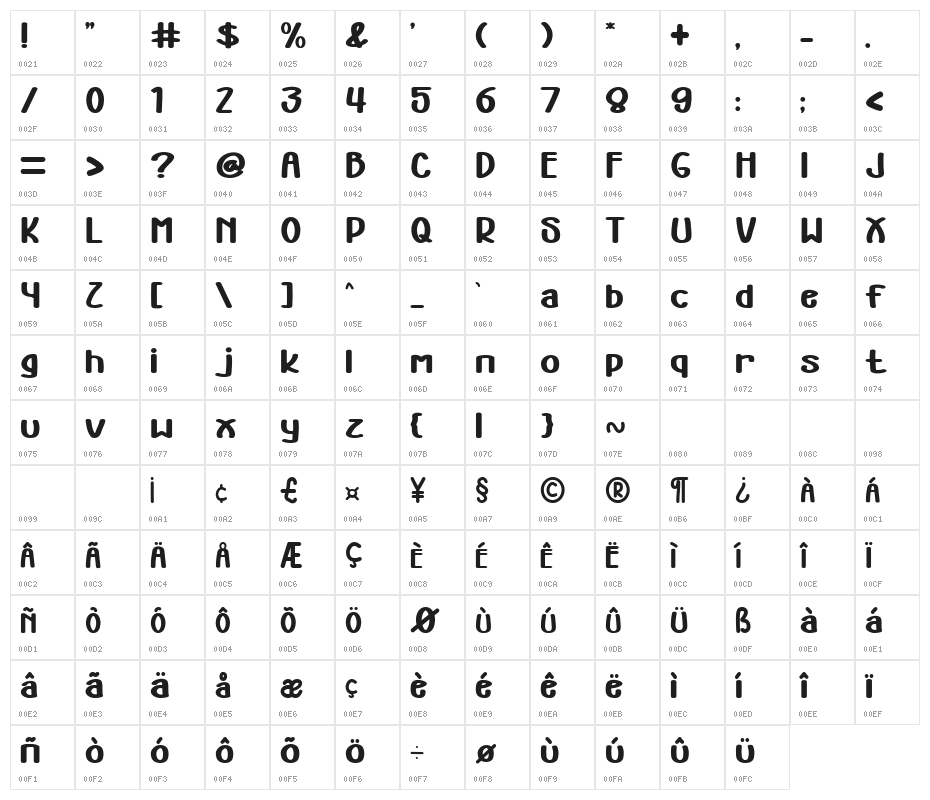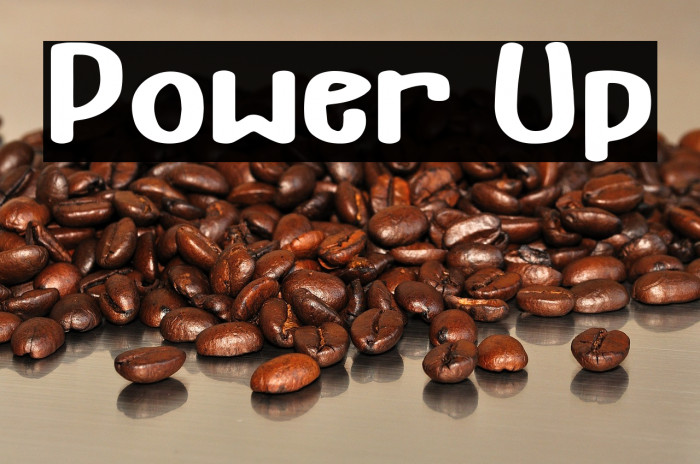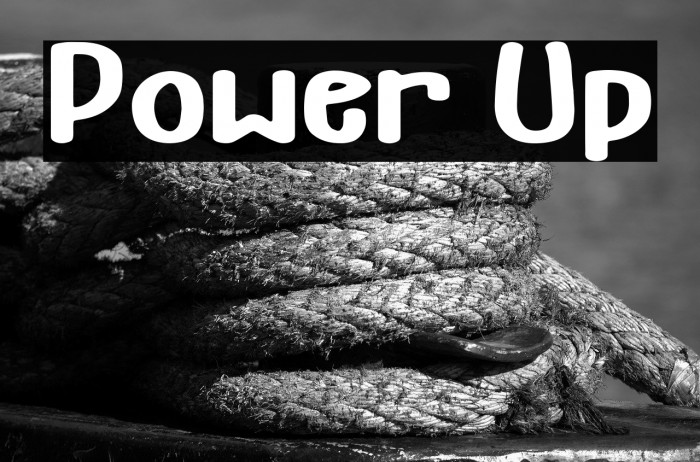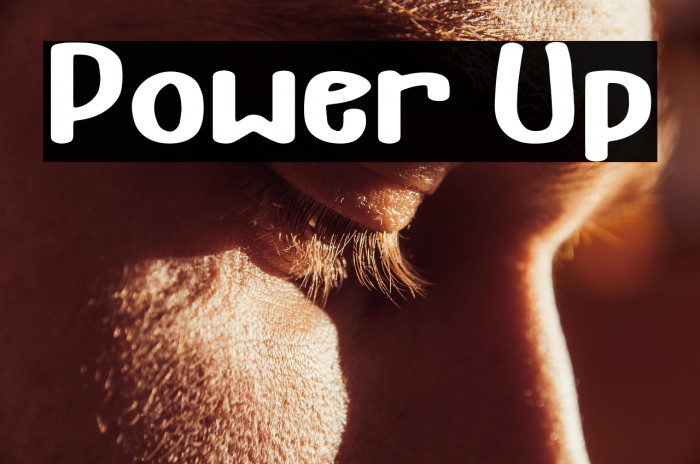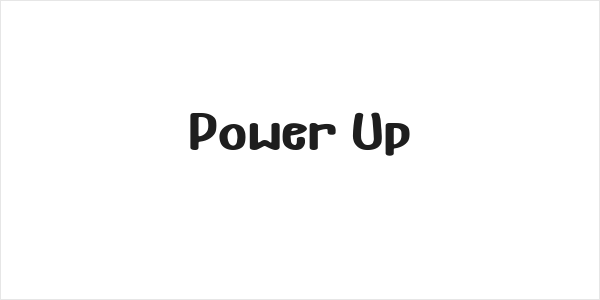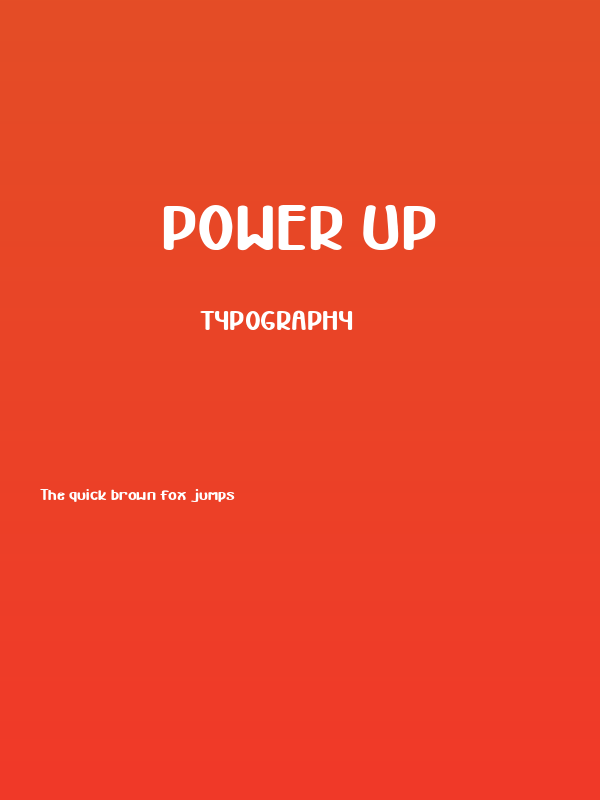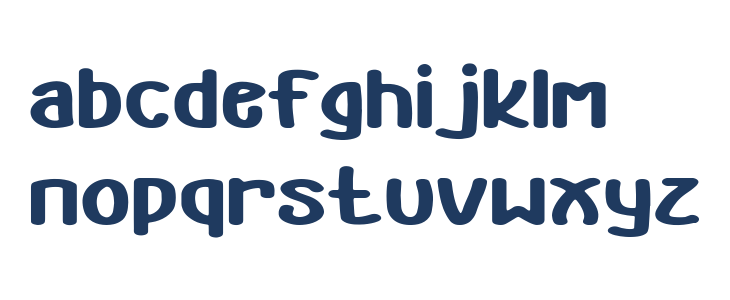
Power Up Font
Power Up Description
This font features a playful and rounded style, characterized by its bold and smooth curves. The letters are evenly spaced, with a consistent stroke width that gives it a friendly and approachable appearance. The uppercase and lowercase letters maintain a uniform height, contributing to a cohesive and balanced look. The numerals and special characters are designed to match the overall aesthetic, ensuring versatility across different uses. Its simplicity and clarity make it suitable for a variety of applications, from children's books to casual branding projects.
| Use Case | Headlines, Logos, Casual Text |
| Proposed Projects | Ideal for children's books, playful branding, casual invitations, and educational materials. |